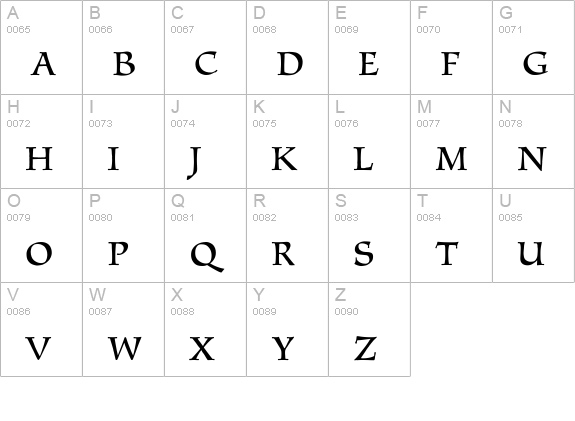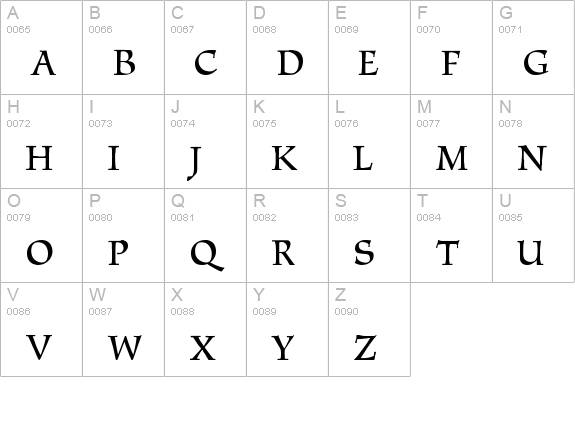
Amigo Font Details
Amigo font is a delightful and charming typeface that effortlessly combines elegance with a touch of playfulness. Its smooth and flowing lines give off a sense of warmth and friendliness, making it perfect for a wide range of design projects. With its modern yet timeless appeal, Amigo font is versatile and can be used for anything from invitations and greeting cards to branding and packaging. Its legibility and readability make it a great choice for both print and digital designs. Best of all, Amigo font is available for free download at FontsMarket.com. So why not add this friendly and stylish typeface to your collection today and let it bring a touch of charm to your next project?